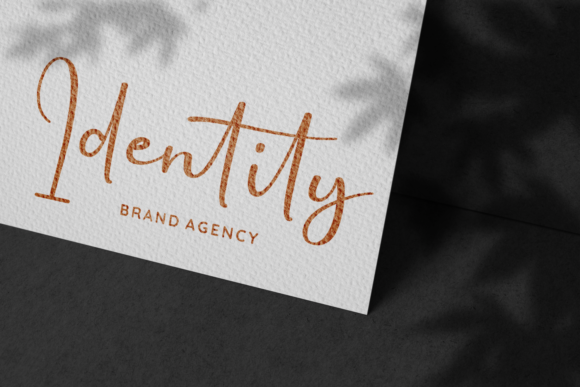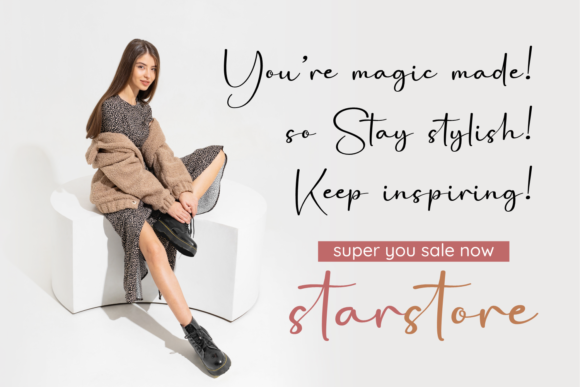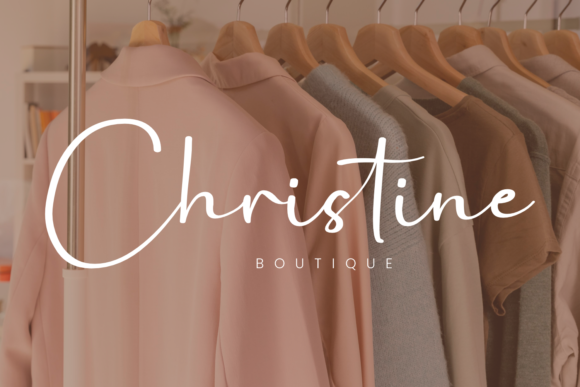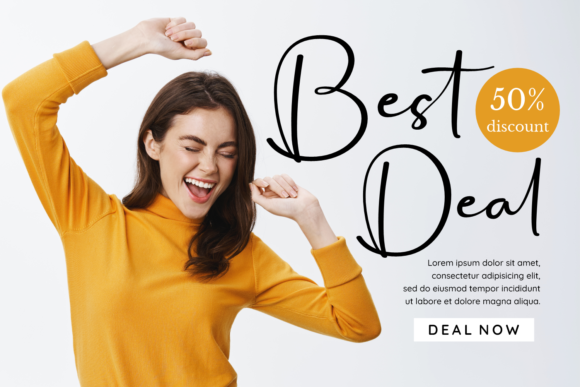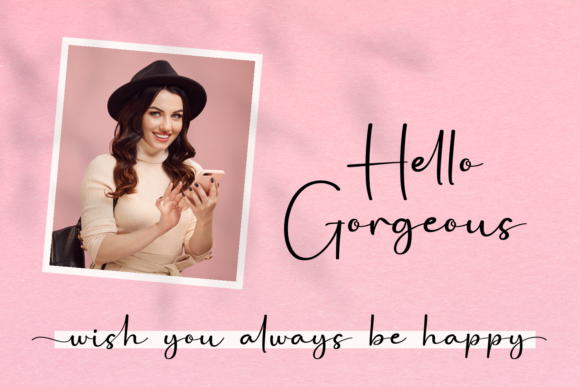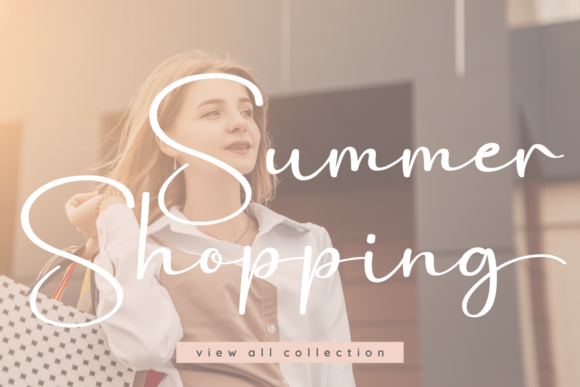
Introducing Adelin Font: Elevate Your Designs with Elegance and Authenticity
Are you tired of using the same old fonts in your designs? Do you want to add a touch of elegance and authenticity to your projects? Look no further than Adelin Font, a stunning script font that is sure to make your creations stand out. In this article, we’ll dive into the world of Adelin Font, exploring its features, benefits, and uses, as well as provide tips and inspiration for designers and crafters.
What is Adelin Font?
Adelin Font is a gorgeous script font that embodies elegance and authenticity. With its unique and flowing design, Adelin is perfect for projects that require a touch of sophistication and refinement. Whether you’re working on a branding project, a wedding invitation, or a packaging design, Adelin Font is sure to impress.
Key Features of Adelin Font
- Elegant and Authentic Design: Adelin Font boasts a beautiful, handwritten design that exudes elegance and authenticity.
- Unique and Distinctive: With its flowing lines and intricate details, Adelin Font is a truly unique and distinctive typeface that will set your designs apart.
- Highly Versatile: Adelin Font is perfect for a wide range of projects, from branding and advertising to packaging and stationery.
- Easily Readable: Despite its elegant design, Adelin Font is highly readable, making it perfect for both digital and print applications.
Benefits of Using Adelin Font
So why should you choose Adelin Font for your next project? Here are just a few benefits of using this stunning script font:
- Adds Elegance and Sophistication: Adelin Font adds a touch of elegance and sophistication to any design, making it perfect for high-end brands and luxury products.
- Creates Emotional Connection: The unique and authentic design of Adelin Font helps to create an emotional connection with your audience, making your brand more relatable and memorable.
- Versatile and Adaptable: Adelin Font is highly versatile and adaptable, making it perfect for a wide range of projects and applications.
Using Adelin Font in Your Designs
So how can you use Adelin Font in your designs? Here are a few tips and ideas to get you started:
- Pair with Bold Fonts: Pair Adelin Font with bold, sans-serif fonts for a striking contrast that adds visual interest to your design.
- Use for Headings and Titles: Adelin Font is perfect for headings and titles, adding a touch of elegance and sophistication to your design.
- Experiment with Colors: Adelin Font looks stunning in a range of colors, from rich jewel tones to soft pastels. Experiment with different colors to find the perfect fit for your design.
Inspiration and Examples
Need some inspiration for your next project? Here are a few examples of how Adelin Font can be used in different designs:
- Wedding Invitations: Adelin Font is perfect for wedding invitations, adding a touch of elegance and sophistication to your stationery.
- Branding and Packaging: Adelin Font is a great choice for branding and packaging, helping to create a unique and memorable identity for your brand.
- Advertising and Marketing: Adelin Font can be used in advertising and marketing materials, such as brochures, flyers, and social media graphics.
In conclusion, Adelin Font is a stunning script font that is perfect for designers and crafters looking to add a touch of elegance and authenticity to their projects. With its unique and flowing design, Adelin Font is sure to make your creations stand out. Whether you’re working on a branding project, a wedding invitation, or a packaging design, Adelin Font is a great choice. So why not give it a try and see the difference it can make?